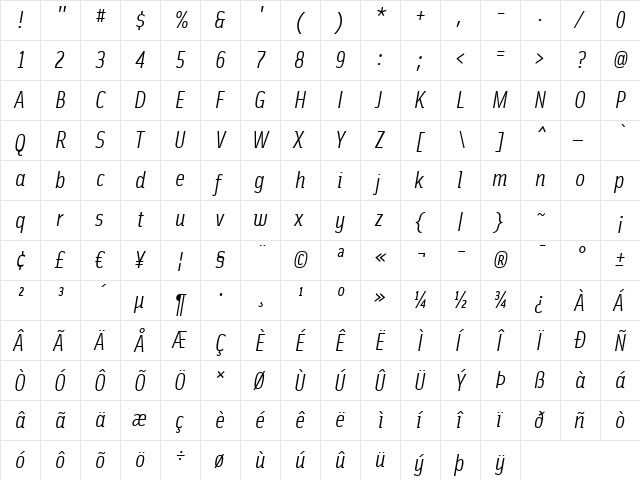
SolexRegularLiningItalic Regular
| Foundry | Emigre Inc. |
| Designer | Zuzana Licko |
Design Context for SolexRegularLiningItalic Typeface
SolexRegularLiningItalic is a composed and adaptable typeface that performs quietly and consistently across a wide range of design contexts. Its italic angle brings a sense of urgency and motion to the letterforms.